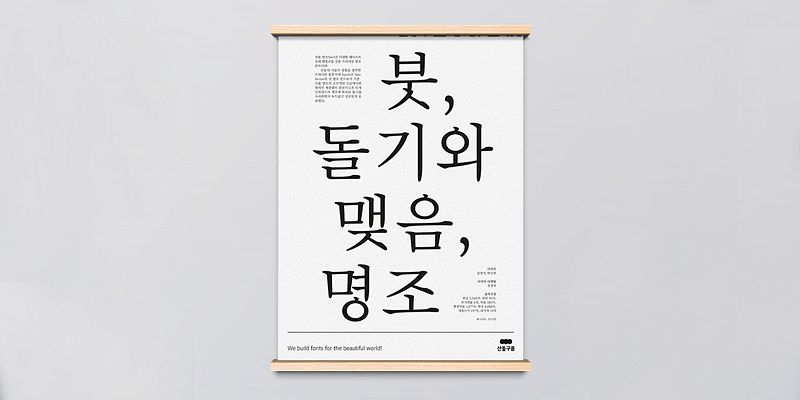
As the first Myeongjo font of the Sandoll Neo Series for main body texts, it combines Sandoll’s expertise and technique. It seems more modern and chic than the existing Myeongjo fonts, and expresses Myeongjo’s unique endpoints in an elegant yet clean-cut manner.